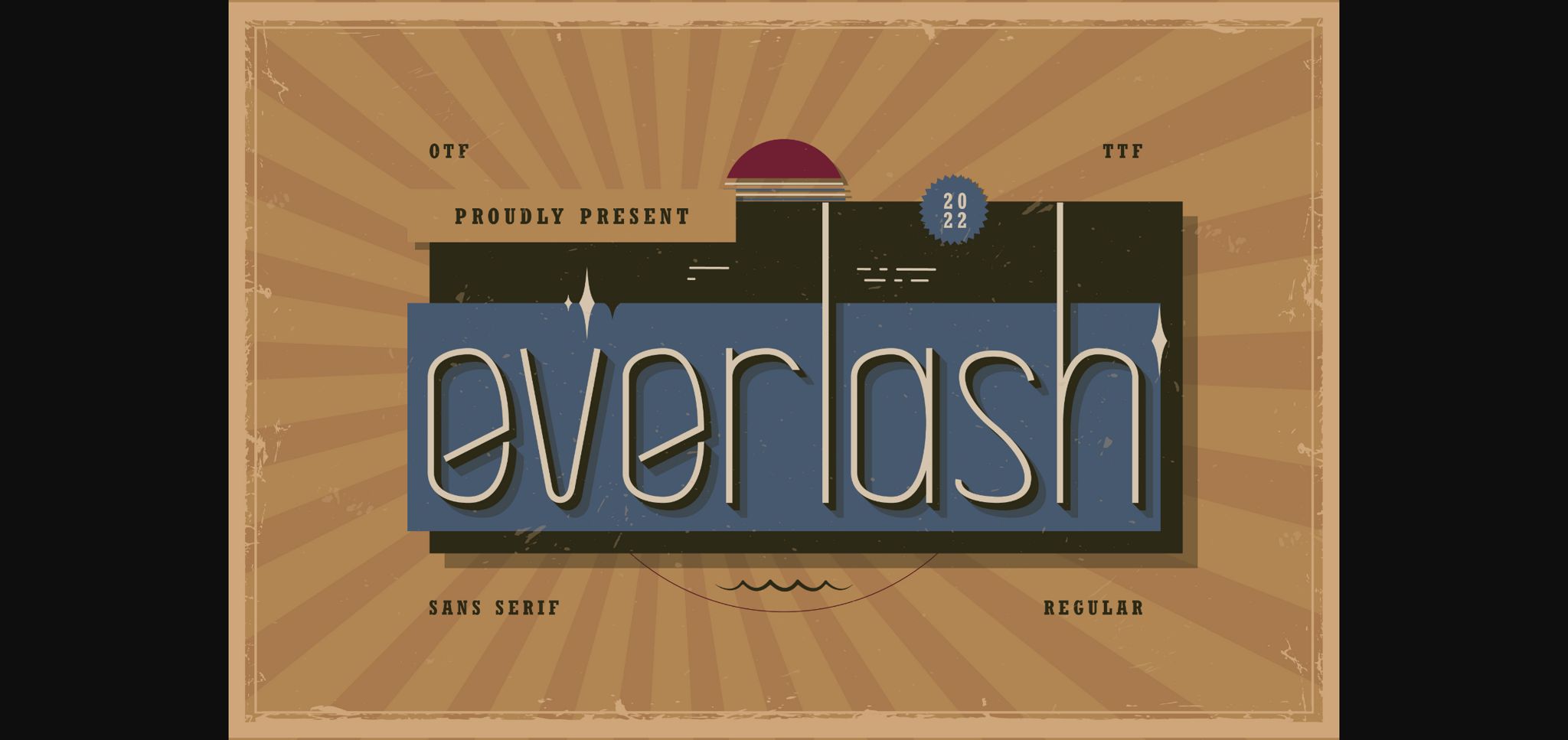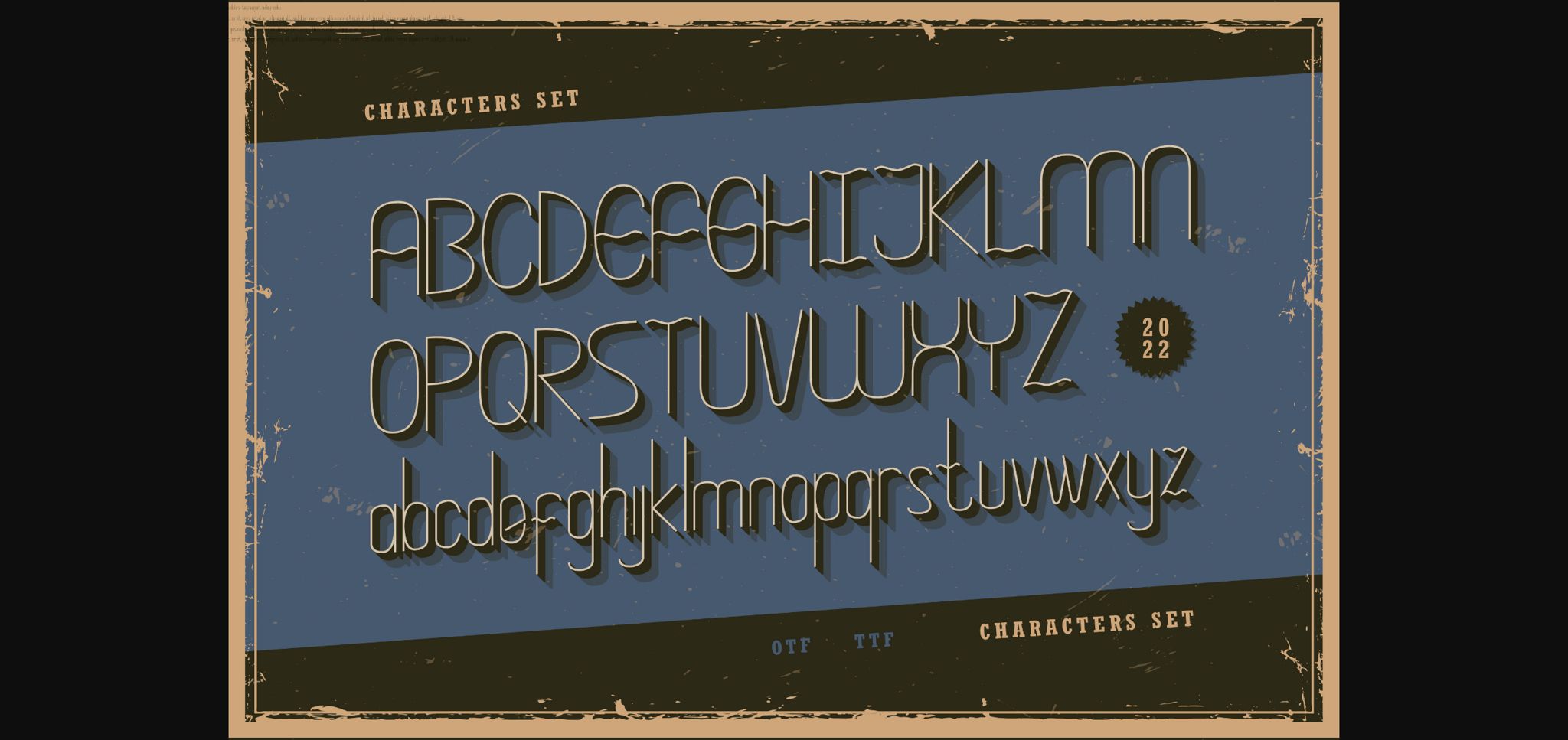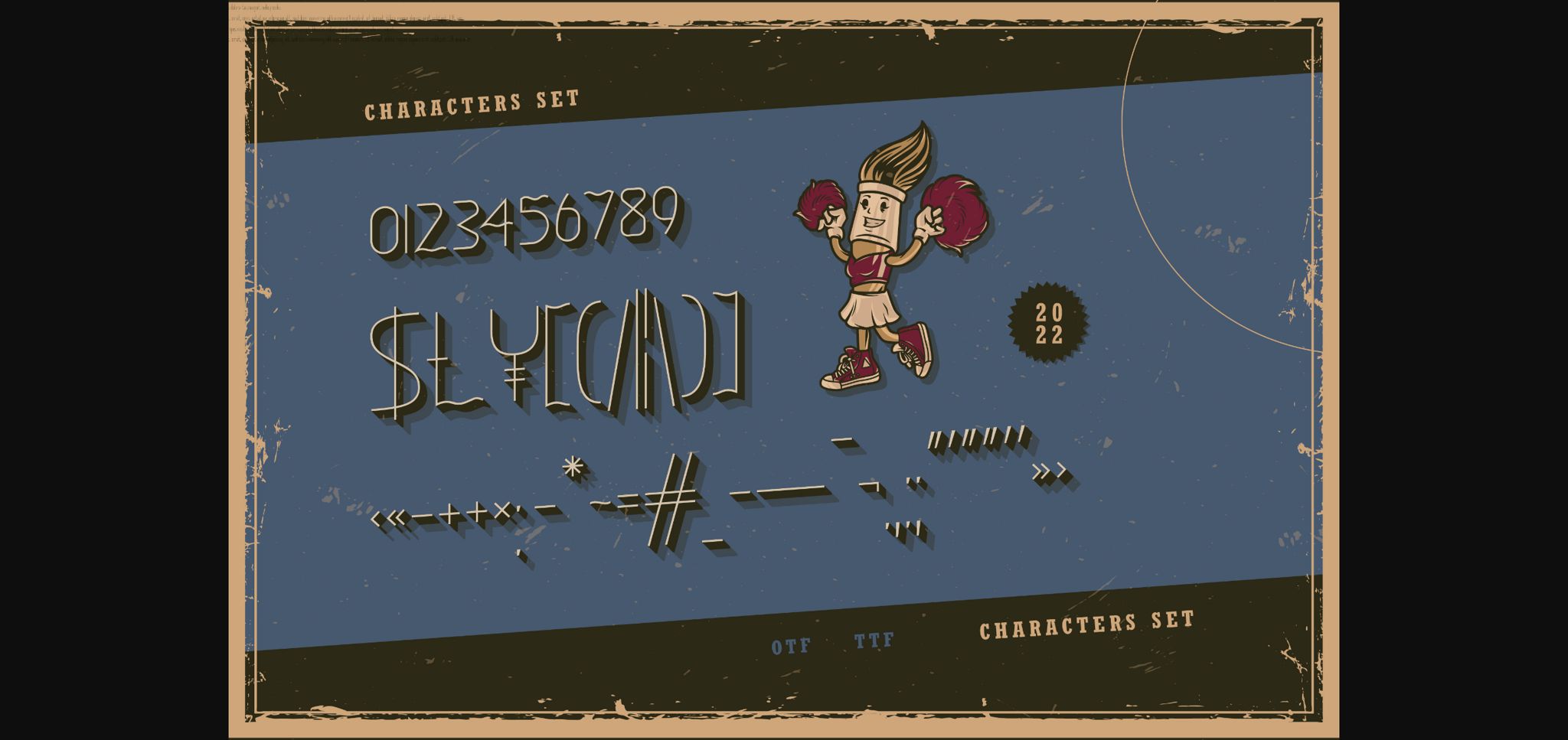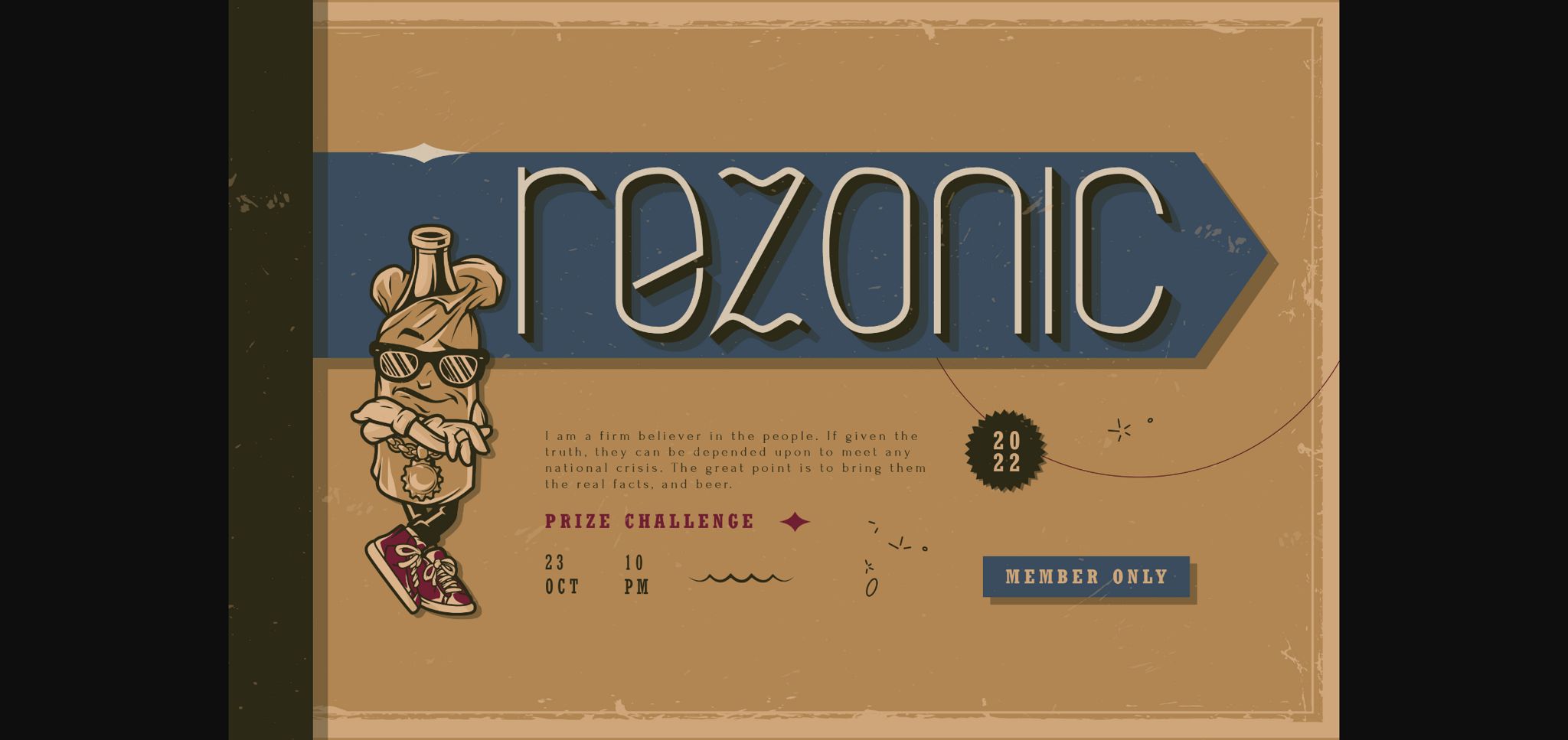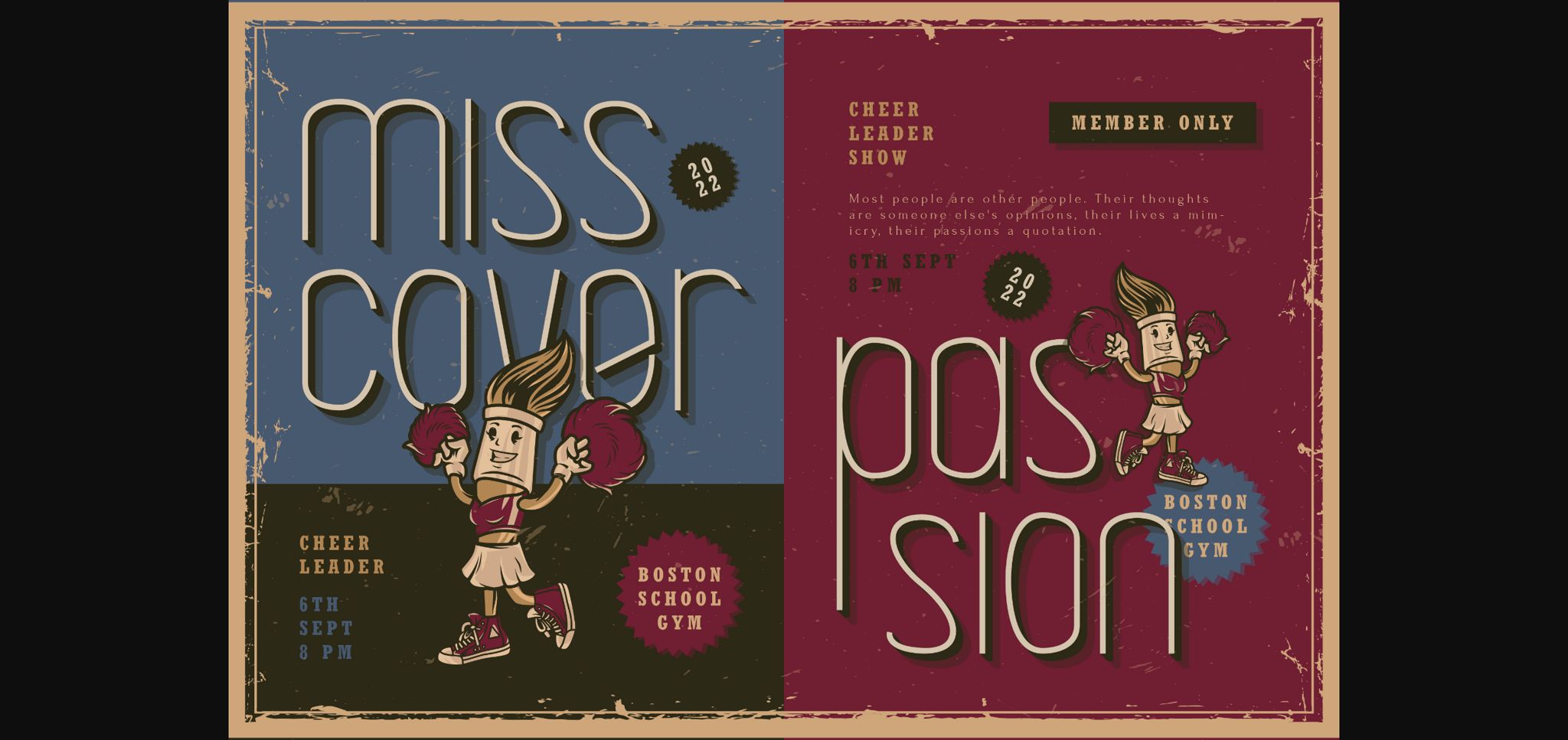
About Everlash Font
Everlash is a thin-lettered sans serif font with a subtle vintage vibe. With its beautiful rhythm, this font will help you create gorgeous and classy compositions. Use it for branding projects, invitations, web graphics, cards, and many more!